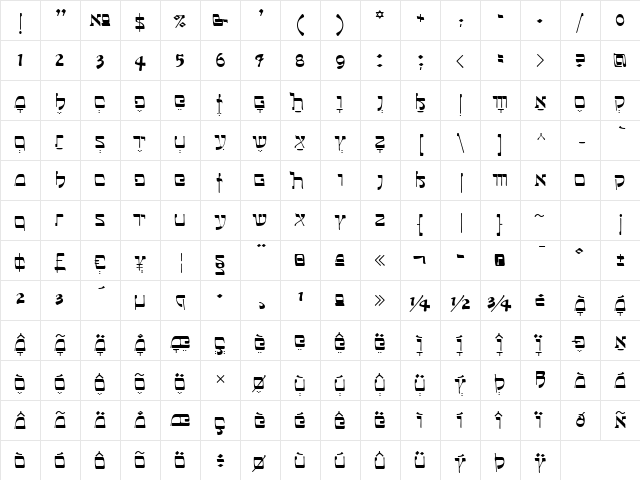
Talmud Regular
Design Context for Talmud Typeface
Talmud offers clean, dependable letterforms without strong stylistic allegiance, making it a practical choice for designers who need flexibility.